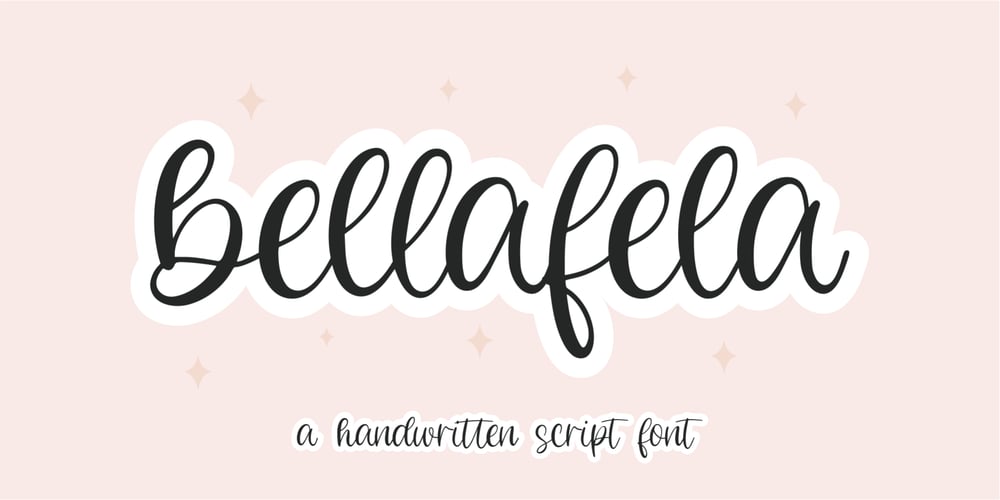
Bellafela
Bellafela font
Bellafela Font Family was designed by Suhery Anto, Odies Dwi Yudhistira and published by Qwrtype Foundry. Bellafela contains 1 styles and family package options. Proudly presenting: Bellafela is a handwritten script font.Bellafela is perfect for product packaging, branding projects, magazines, social media, wedding invitations, or just used to express words above the background.Bellafela also comes with multillingual support.Enjoy the font, thank you!